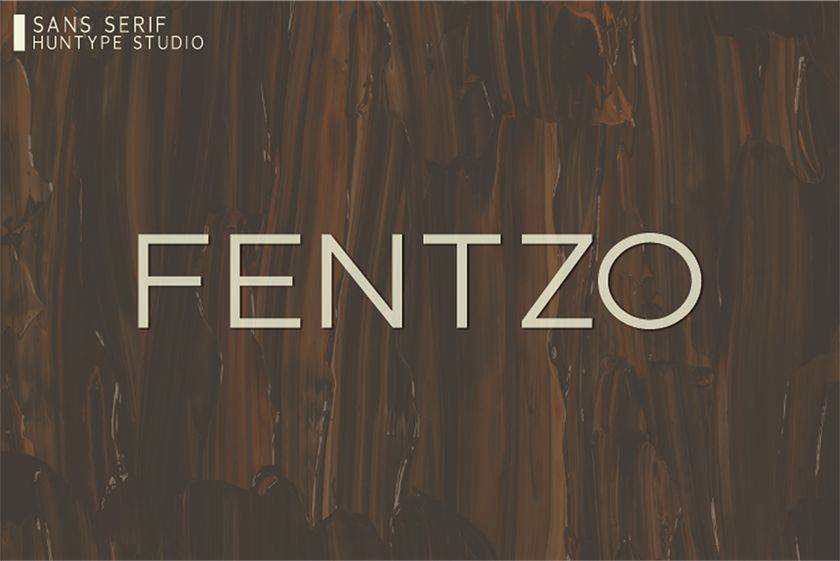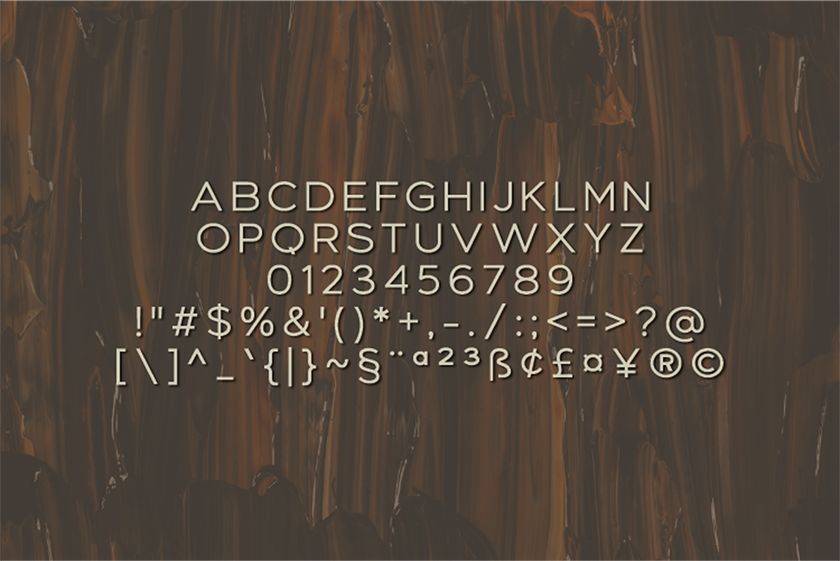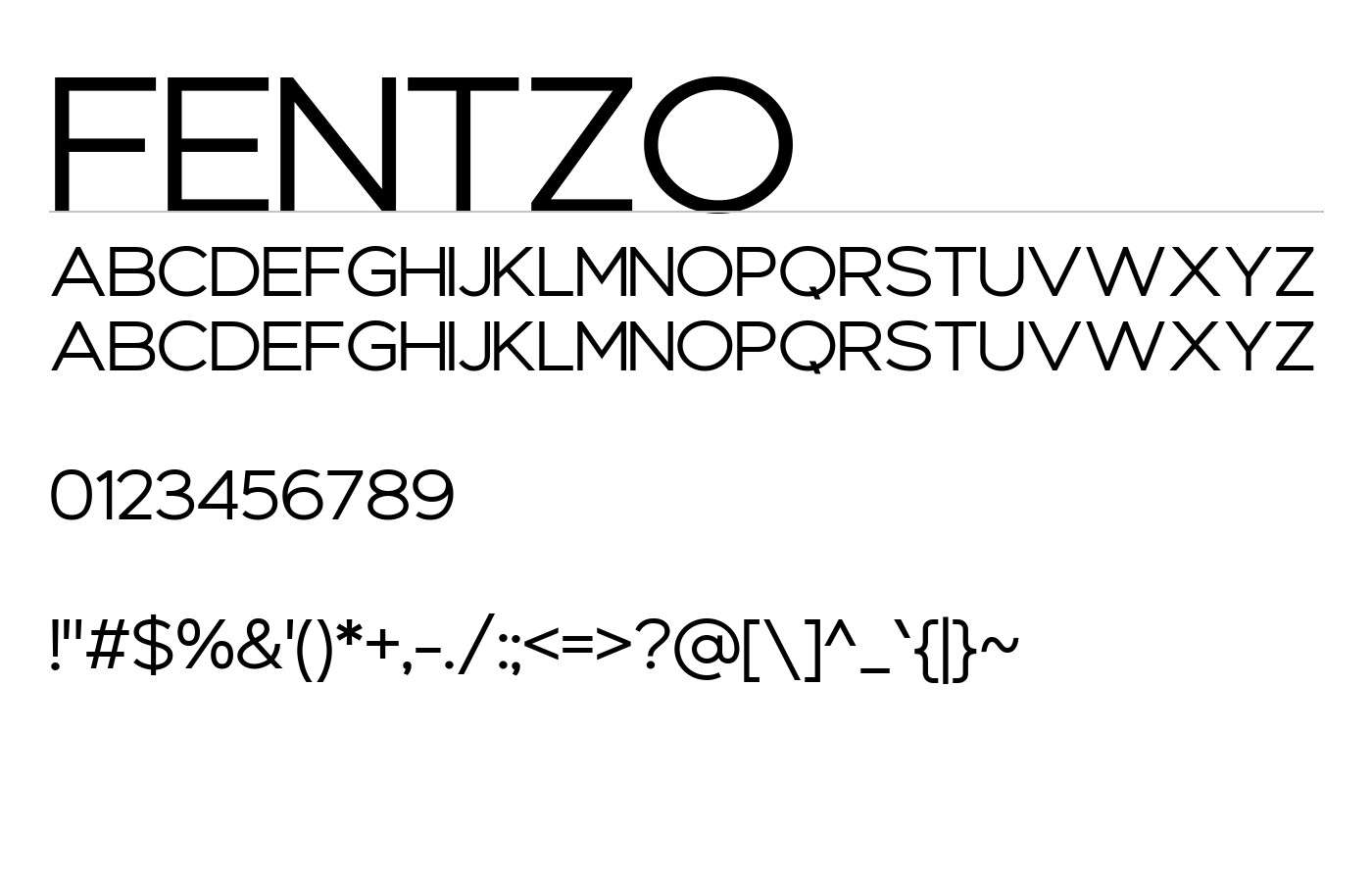
Fentzo is a modern, geometric sans serif font characterized by its clean, thin lines and balanced proportions, giving it a sleek and minimalistic look. Its uniform stroke weight and open letterforms make it highly legible and versatile, ideal for contemporary branding, editorial headlines, and digital interfaces where clarity and style are essential. This font communicates sophistication with simplicity, making it perfect for modern, professional, and tech-oriented design projects.
Fentzo Font
About Fentzo Font